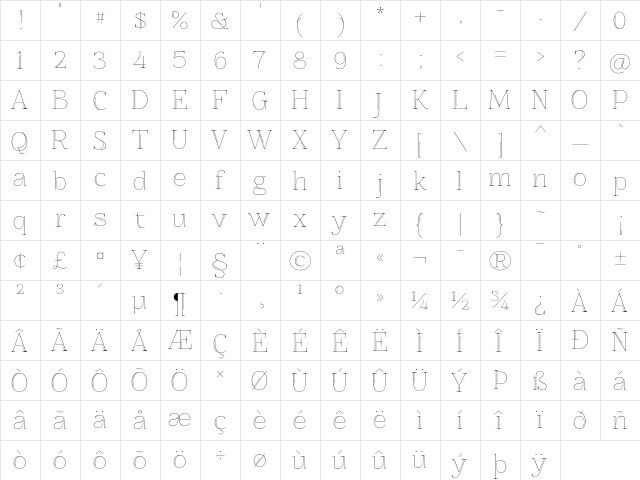
ZnikomitNo25 Regular
| Foundry | gluk |
| Designer | gluk |
Design Context for ZnikomitNo25 Typeface
ZnikomitNo25 is a composed and adaptable typeface that performs quietly and consistently across a wide range of design contexts.